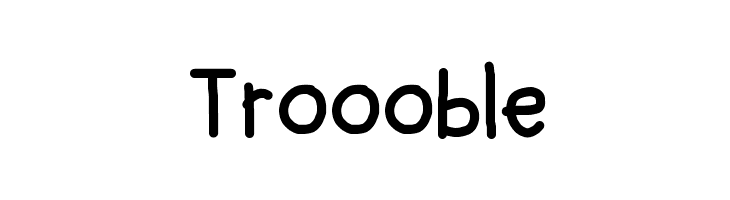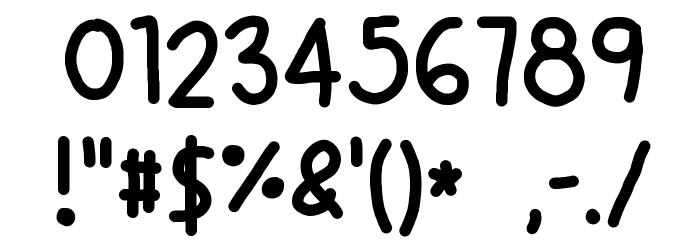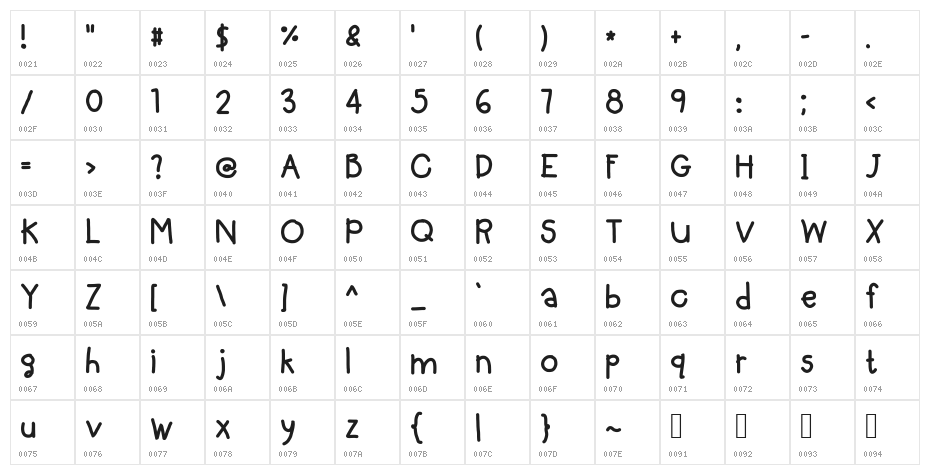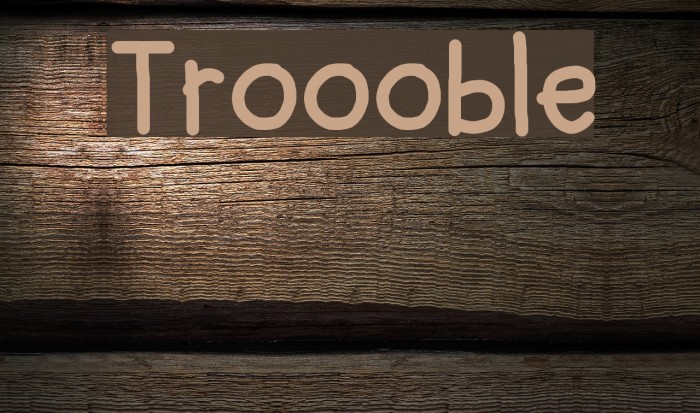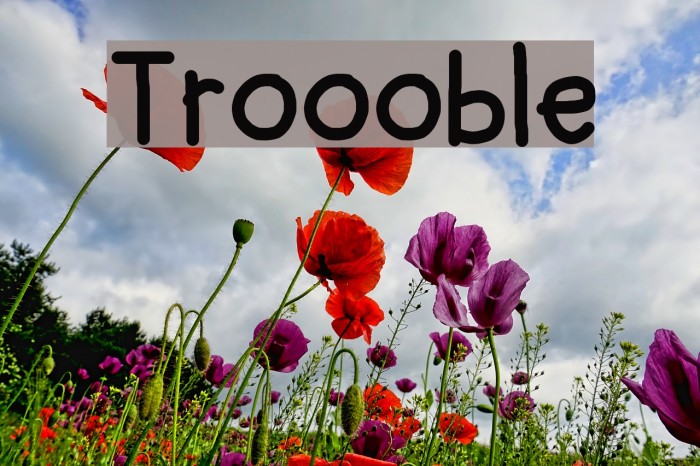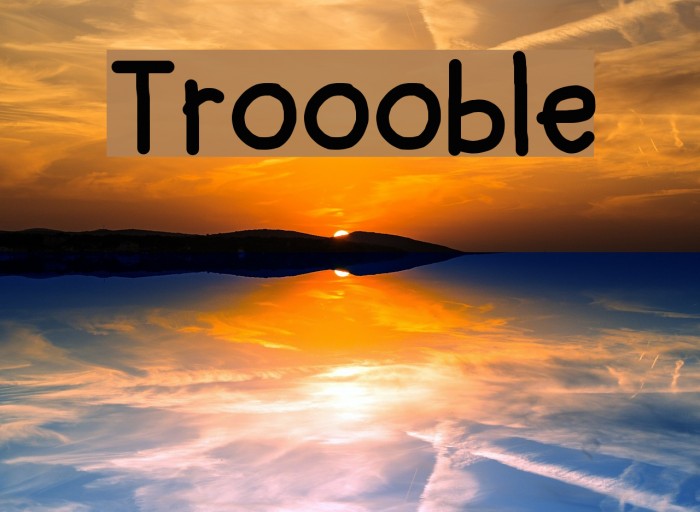
Troooble Font
Troooble Description
This playful and quirky font features a hand-drawn aesthetic with irregular, rounded strokes that give it a casual and friendly appearance. The letters are slightly uneven, adding to its charm and making it ideal for informal and creative projects. The uppercase and lowercase letters maintain a consistent style, with a slight variation in size and shape that enhances its whimsical nature. The numerals and special characters are designed to match the overall playful theme, ensuring a cohesive look across all text elements.